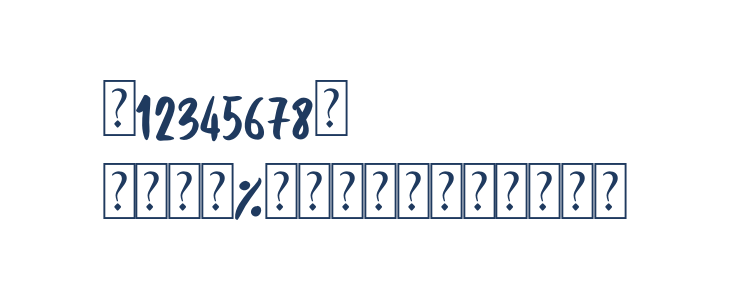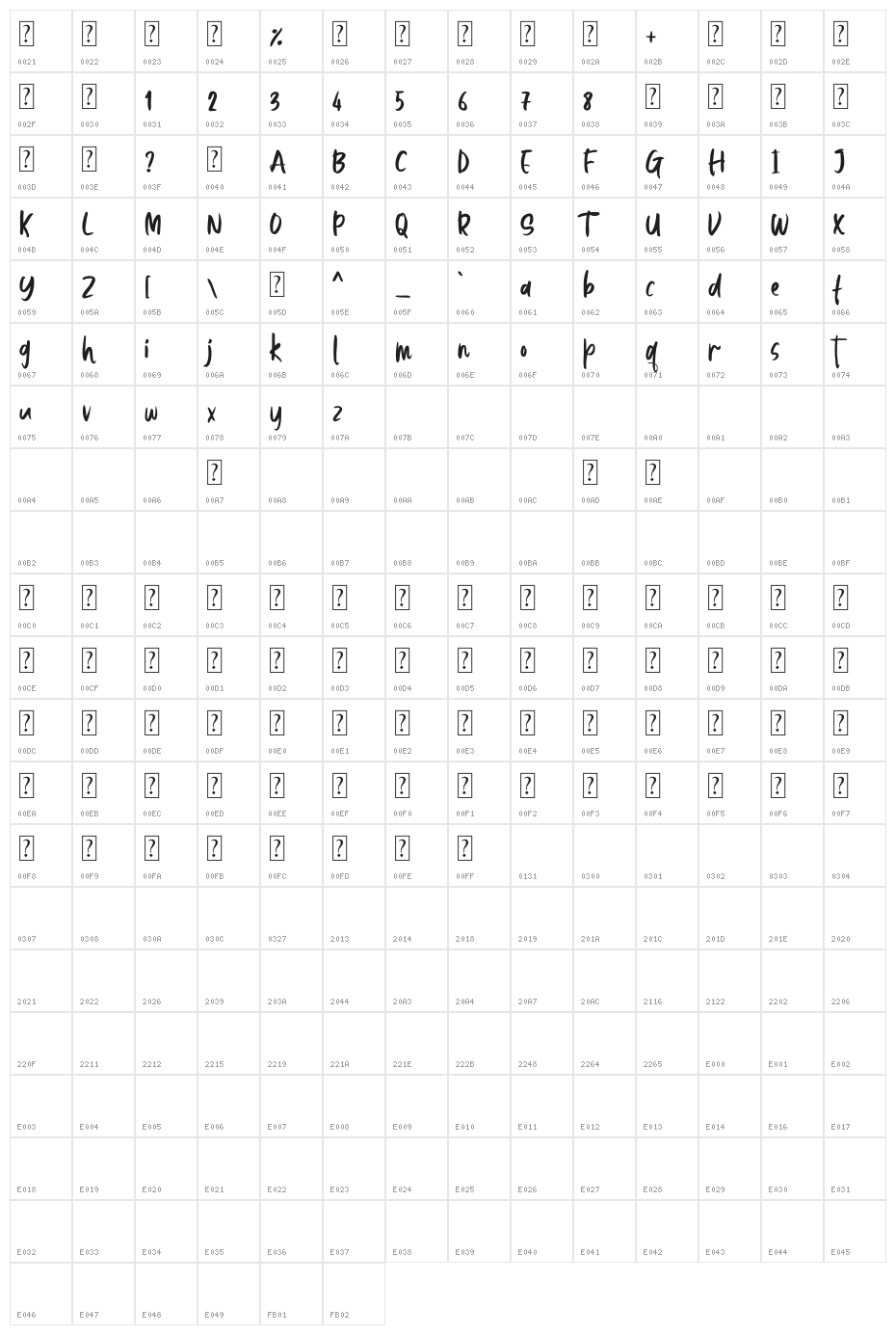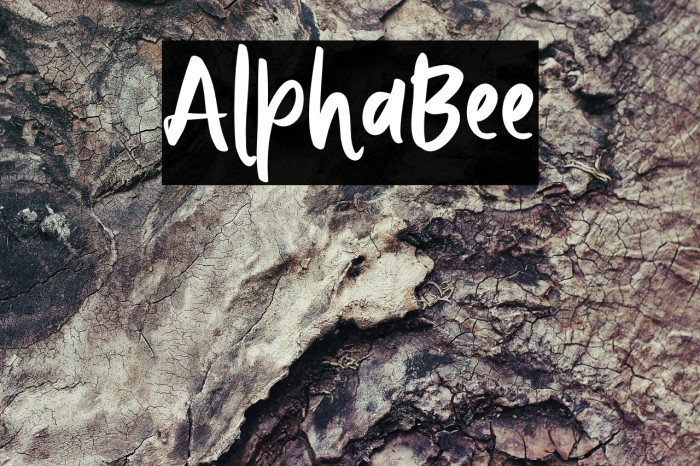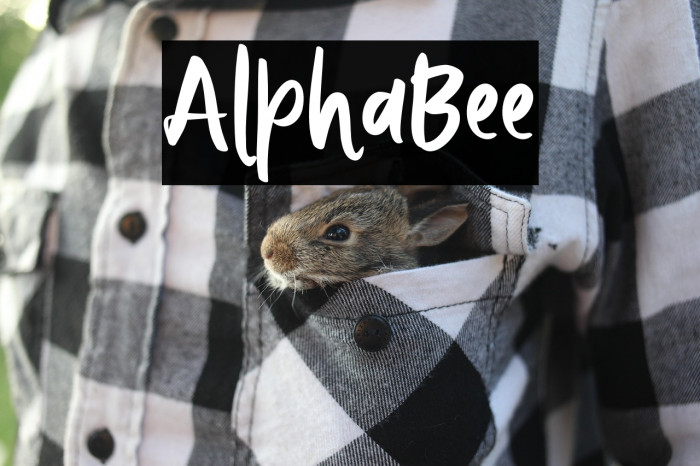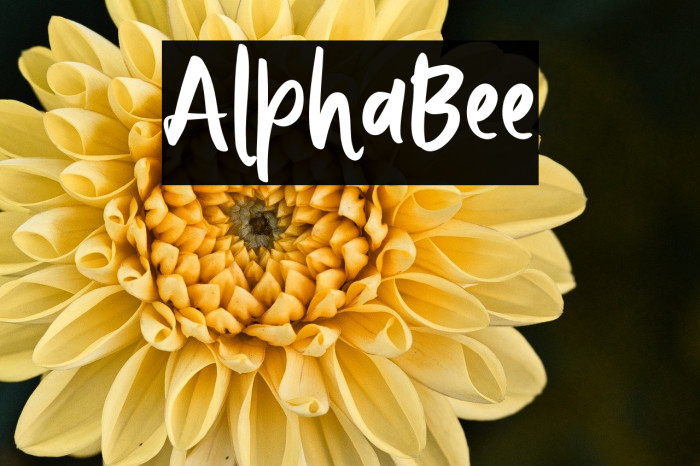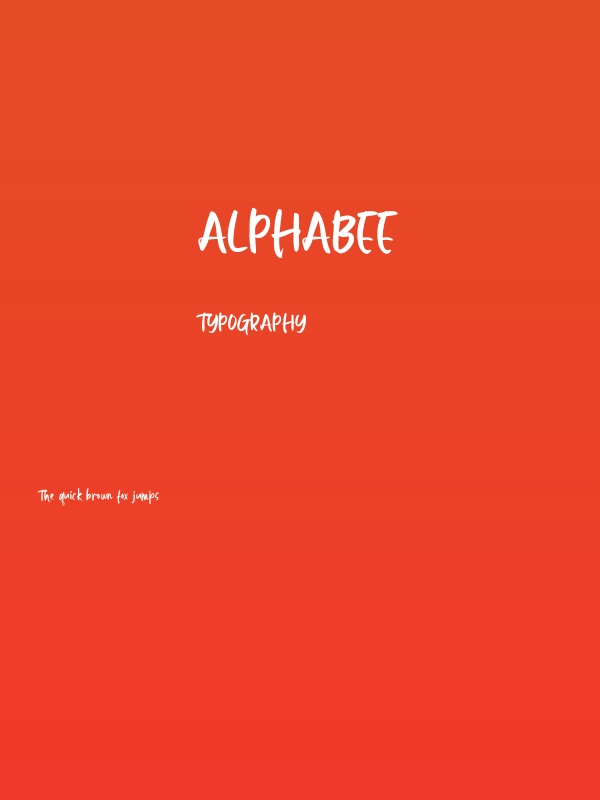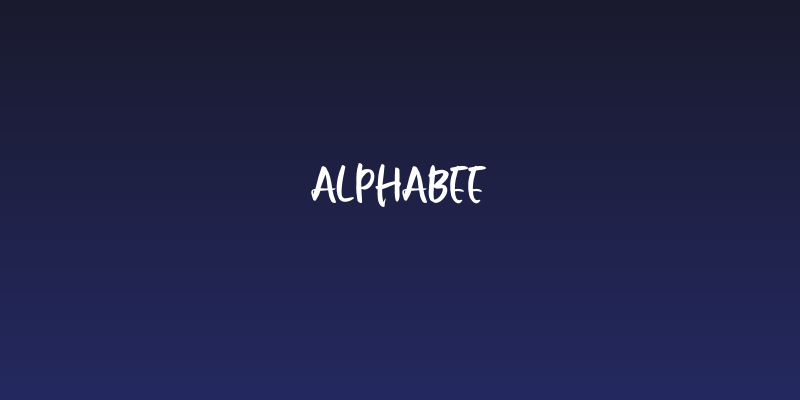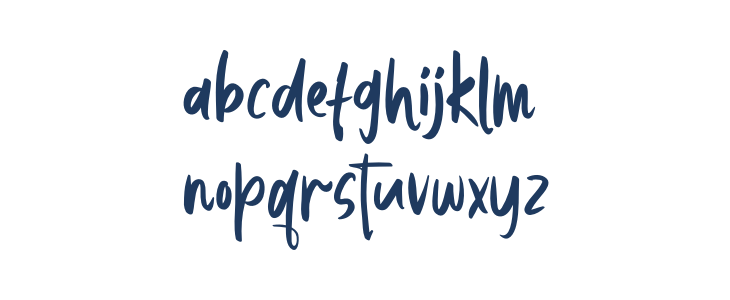
AlphaBee Font
AlphaBee Description
This font features a playful and energetic handwritten style, characterized by its bold and slightly irregular strokes. The uppercase letters are tall and expressive, while the lowercase letters maintain a consistent flow with a casual flair. The numerals are dynamic, matching the overall lively aesthetic. The font includes a variety of special characters, enhancing its versatility for creative projects. Its informal and friendly appearance makes it suitable for designs that aim to convey warmth and approachability.
Overall StyleCasual and playful
Use CaseHeadlines, Logos, Informal Invitations
Proposed ProjectsIdeal for greeting cards, children's books, playful branding, and social media graphics.